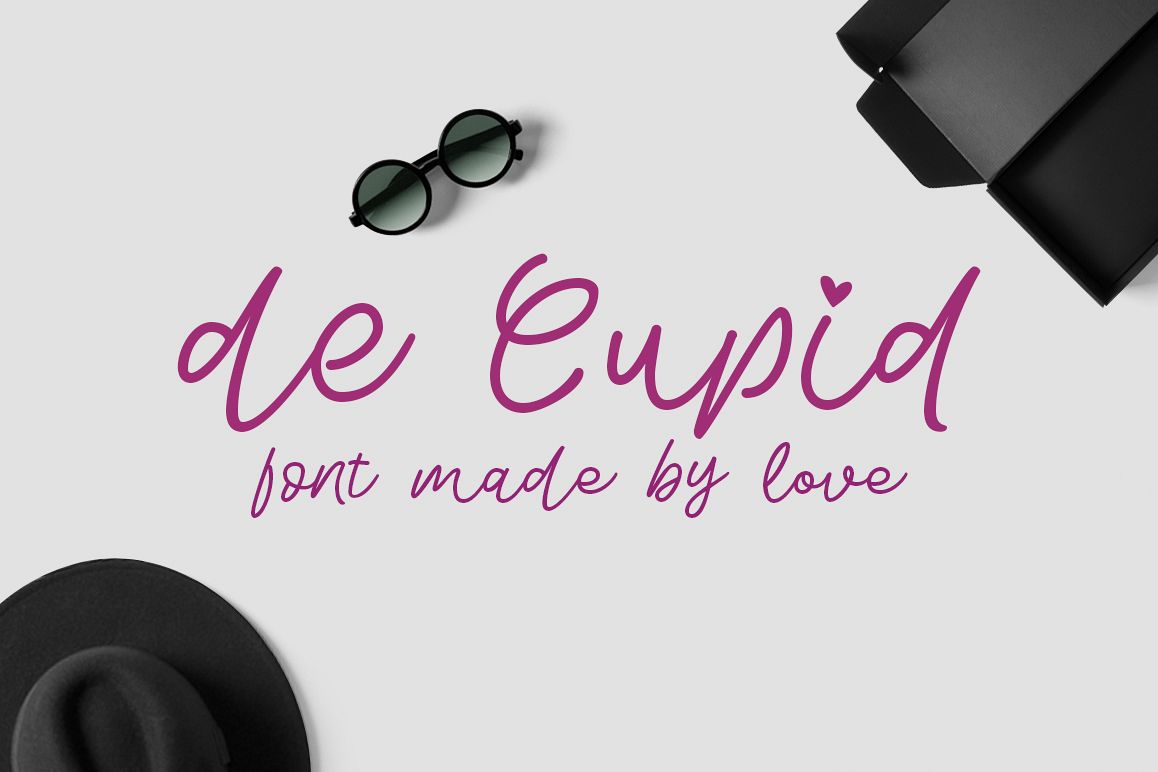
De Cupid is a modern calligraphy inspired loveable font! Containing PUA encoded hearts this font is just wonderful for Weddings and Valentines projects